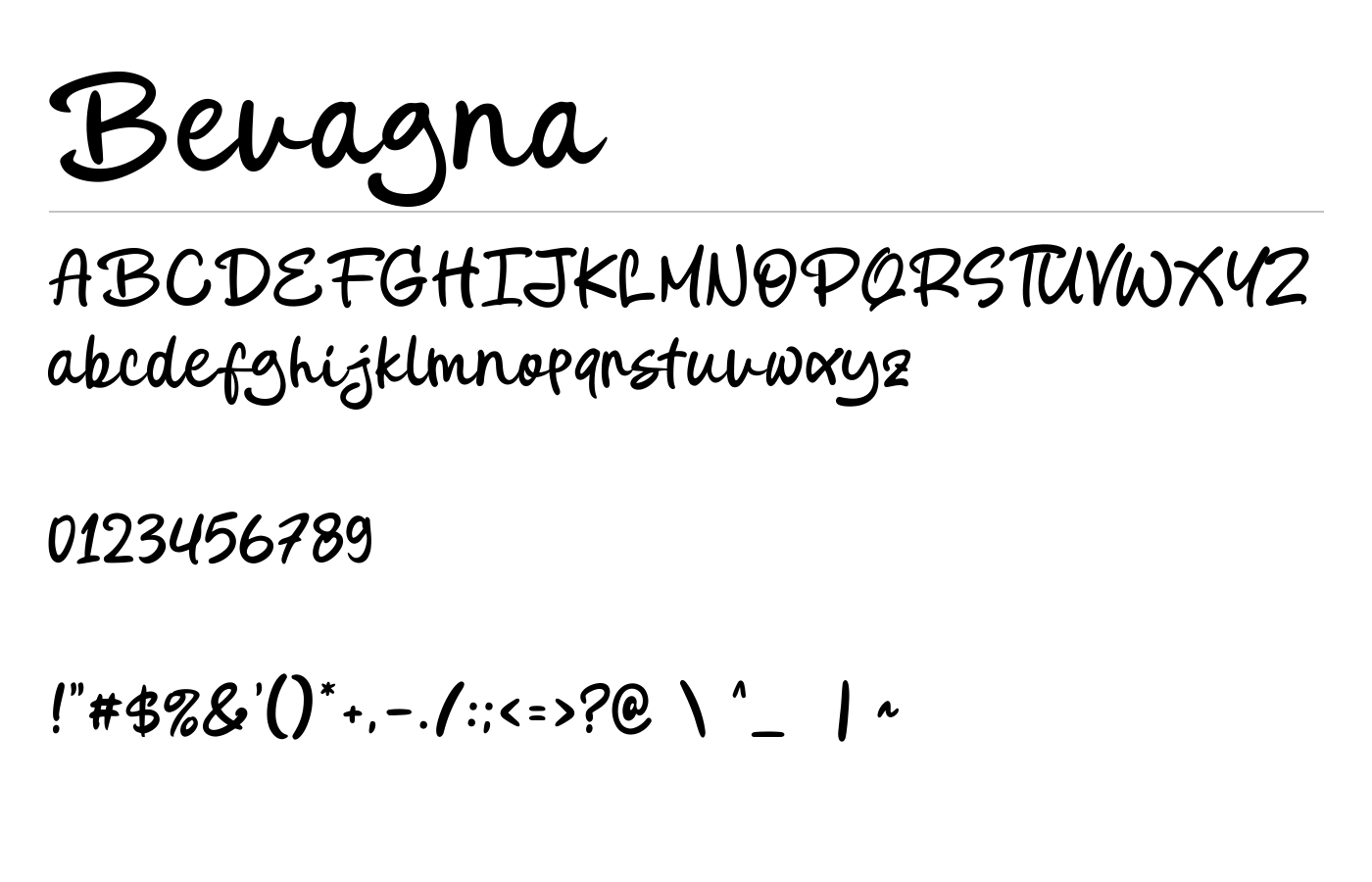
Bevagna is a casual, handwritten script font with a lively and friendly personality, featuring smooth, rounded strokes and moderate contrast. Its playful yet clean letterforms make it ideal for creative projects, informal branding, and engaging headlines where a personal touch is desired. This font works well for invitations, children’s books, and lifestyle packaging that benefit from an approachable and warm look.
Bevagna Font
About Bevagna Font